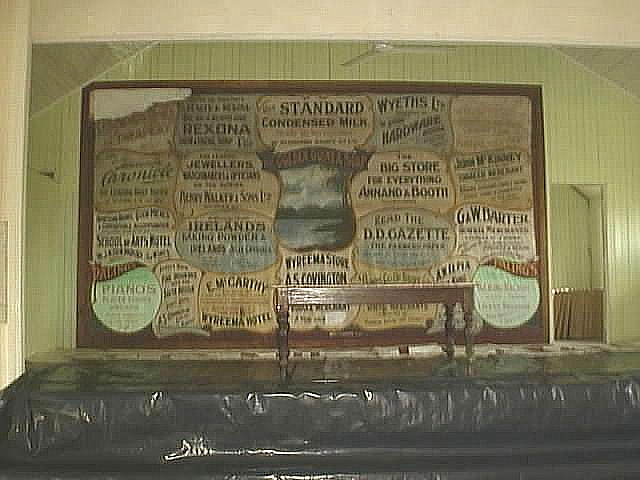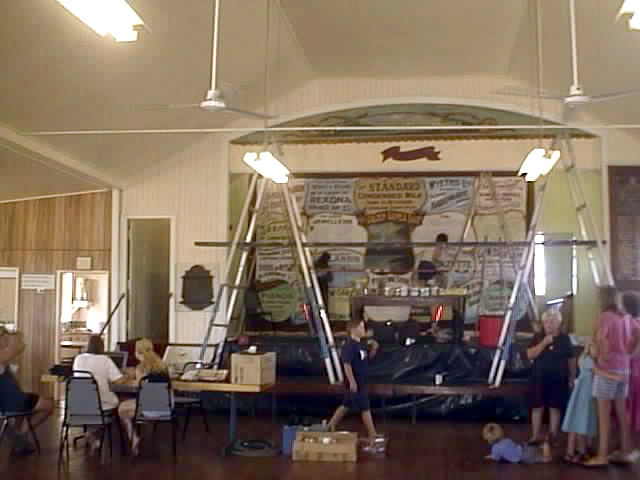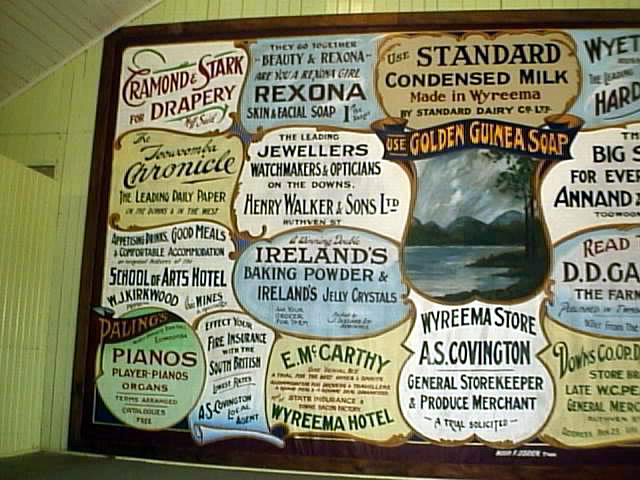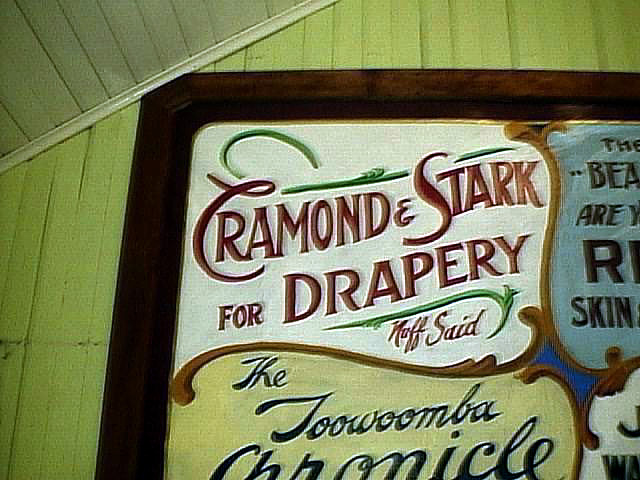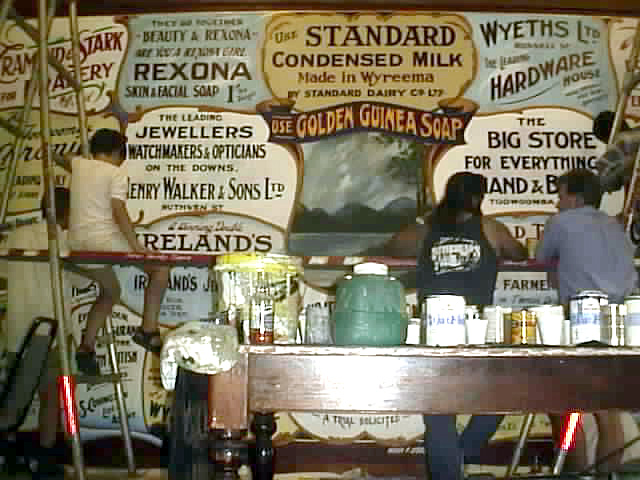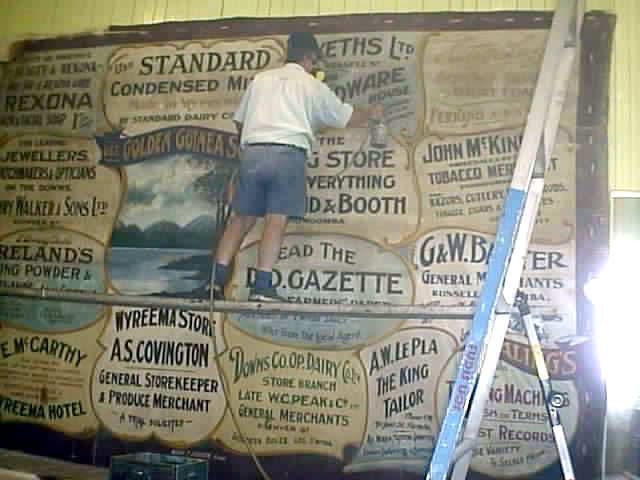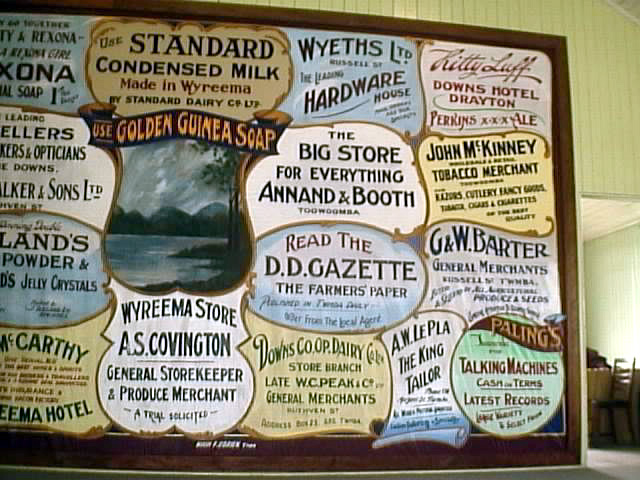
Oz
Letterheads to the Rescue ... Again!
A plea for help appeared in the Toowoomba Chronicle prior to Christmas,
complete with photo of a theatre curtain covered in signwritten adverts. "Can anybody restore this before it falls apart?"
It was like a carrot to a donkey, and the hall was less than 10 minutes down the road! Phoned the number and arranged a meeting with the "trustees" of the hall.
Took one look! Wow!!!! 5.6m x 3.5m of pure history written on calico in the old powder paints in 1918! The only reason it had survived to this date is the fact that half of it had been rolled up for years and the top half had another layer of calico glued to the back of it to hold it together.
"Can you help?" "Yes, I would love to, but need some help" "How much? We don't have much left after renovating the hall" "How about FREE?" Silence (is this paint covered old dude for real?) "Give me a couple of weeks to
organize some paint etc and we will do it!" "Australia Day long weekend suit you?"
Sorta fitting time to restore an 80+ year old piece of history.
Rest was easy. Sponsors came out of the woodwork when all you asked for was anything but money.
World via HeadTV. Of the original surviving advertisers on the curtain ... McKinney's grandson paid for the food. Downs Hotel provided all the liquid refreshments and the Chronicle heaps of publicity. With the unbelievable local hospitality from the Wyreema townspeople ... we could ask for nothing more!
Pre-meet Preparations:
I enlisted the help of another "established" Toowoomba Signwriter: Peter Tierney (henceforth known as "PT") PT is a past President of the Australian Sign Association and now a Life Member ... and definitely now infected by the deadly Letterhead Virus ...
hahahahaha.
Together we inspected the curtain again and formulated the best plan of attack. With the help of what seemed to be half the town, we mounted the curtain permanently on the back wall of the stage. Because it was impossible to clean with any sort of solvent, we just ran a
vacuum cleaner over it to remove layers of dust and then sprayed it with 2 coats of clear Tautflex to seal it. It was then framed with 4x2 planks from 100 year old church pews found under the hall.
It was also decided to repaint the outside front of the hall if time allowed. I did a typical "Bushie" sepia mural to go above the front doors, and PT scrolled the top of a plaque to go in the hall, so we could all sign it for prosperity when we finished.
Day Minus 1
The Eager Beavers started arriving. Katie (Kookaburra) was already here spending a month of her school holidays doing work experience with me. Bob (Badges2), her dad ,arrived from Bundaberg with his friend Kerry from Gladstone and a heap of appropriately printed T-Shirts. Kel Lawton found us via a cell phonecall from around the corner! Immediately asked if he has missed out on anything!
Friday Day 1
Where do we start? We just did!!!!! If you saw something that needed doing, you did it. If you were not sure how ... you asked. Everybody shared ... isn't that what Letterheads is all about!
Darren & Melissa turned up from Hervey Bay and never stopped 'till the meet finished! Barry from Oxlades hogged the TV footage they shot that day for the News. Had to share it with the other good looking chicks like my Daughter Vicki, Katie, Melissa and my apprentice Sarah
though.
By lunchtime, we had enthusiastic L'Heads washing in backgrounds so we could still see the original lettering. Kel took over the outside front of the hall and was first to discover how old signwriters made the lettering fit the spaces! Check out the photo .. the LL on HALL horizontal strokes are twice as long as they should be to try and fill up the rest of the sign! But we were here to restore, not to correct, so the theme was always follow the original! It proved to be a constant sorce of amusement and learning. Swiftly the nickname "Doovers"was given to all the little dots, dashes etc ... that filled in gaps in lines. Letter styles changed within words! Suddenly you were writing a serif then back to block! The Freehand script was unreal! But altogther it looked great. Just hard to understand some of the language tho ... Quote: 'nuff said!
Army Bob from Brisbane was closely followed in the door by Bloke (Dave Fisher) .... first time I have seen Dave spend more time with brush than a keyboard at a meet! Ray Wain, who was apprenticed to the apprentice of the original signwriter of the curtain arrived. Very "old school" ... none of this computer stuff! His source of information and original techniques was invaluable. Got him tho! ... infected with "Letterheads" hahahahaha
By the end of the first day we were starting to feel the effects of the heat and hospitality. It was back to my place for a quiet BBQ and
reminiscing over a few coldies.
Saturday Day 2
It was an early start via my place for a BYOE (bring your own egg!) BBQ breakfast.
With midday temperatures hitting 41c in the shade, it was impossable to keep up the pace, even with the unlimited supply of free refreshments.
Brendon turned up from Kingaroy and Ian (pinstiping ace
extraordinaire) Coster-Stewart arrived in time to take over the intricate job of painting the blended scrolls around every panel.
Kel finished the front of the hall and moved inside to do the panel above the stage. We left the mural untouched as it was too far gone to repaint. Just sealed it with multiple coats of clear and left it as an example of the original work. The locals insisted we put a Letterhead scroll up there too.
Katie was doing a great job on the Web Cam and
Letterville Chat, informing the world of the proceedings, but still found time to do a bit of lettering.
Suddenly things were realy starting to take shape. The
chorus of local visitors in the back of the hall was like a cheer squad at a football game! With most of it complete by late afternoon the pressure came off and fun blossomed. Anyone on a plank was fair game from below,
pinstriped runners, or at least "L" & "R" on the heels.
We finally retired that night to the air-conditioned comfort and buffet meal at a local hotel ... and lots more
reminiscing. It's a known fact signwriters can talk under a load of wet cement as long as the lubrication is adequate!
Sunday Day 3
The finishing touches. Gold pinstripe on the border. Couple of panels completely repainted because the backgrounds were not quite right. Faux panel work on the front doors. Group photos. "Thank you"s from both sides. Group photos for the locals! Fond farewells and it was over except for the shouting by midday.
Darren finally could restrain himself no longer and several "bungers" punctuated the proceedings. An Oz Meet ain't an OZ Meet without fireworks !
I close with a quote from the bottom line of one of the panels:
"Trials Solicited"
We think it meant ... "Try us, you might like what we have to
offer!"